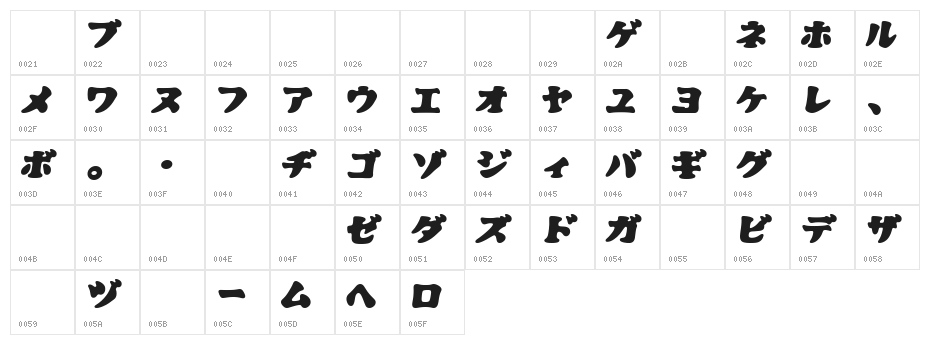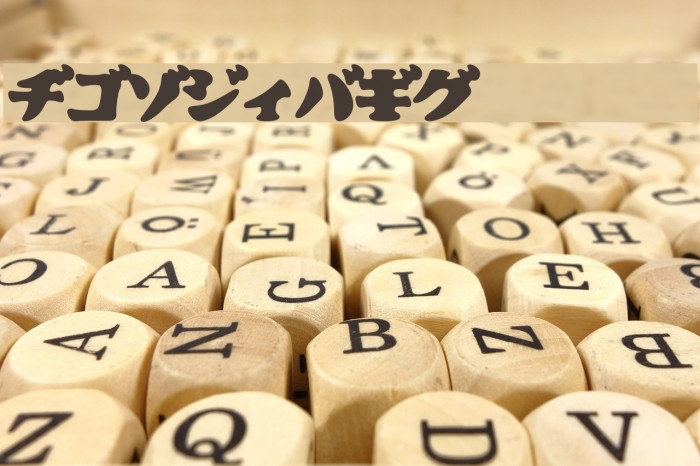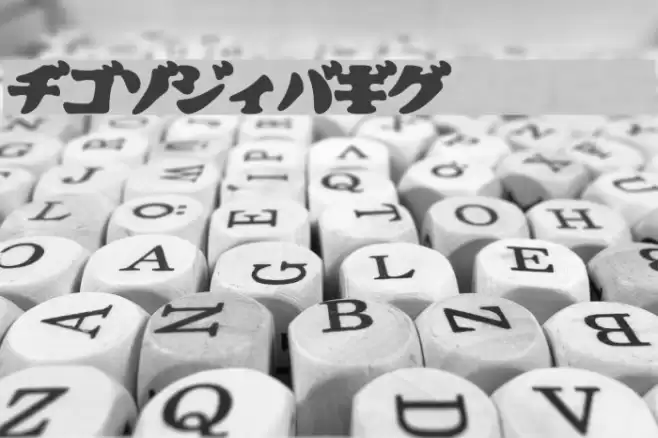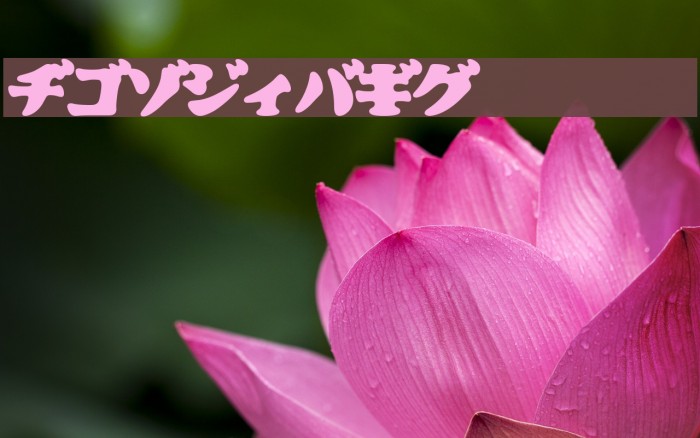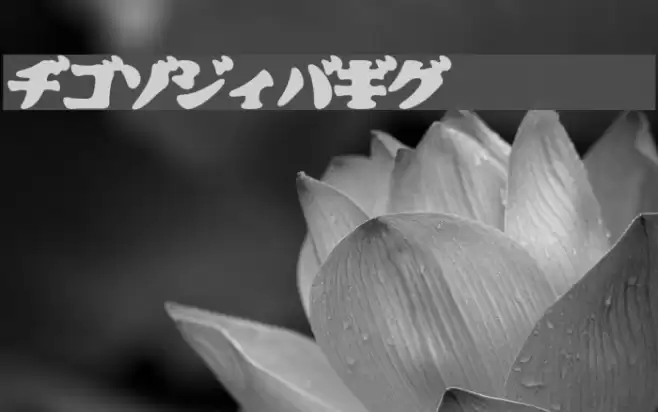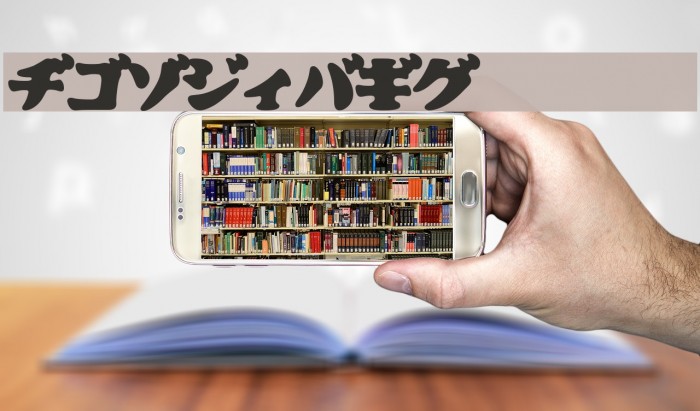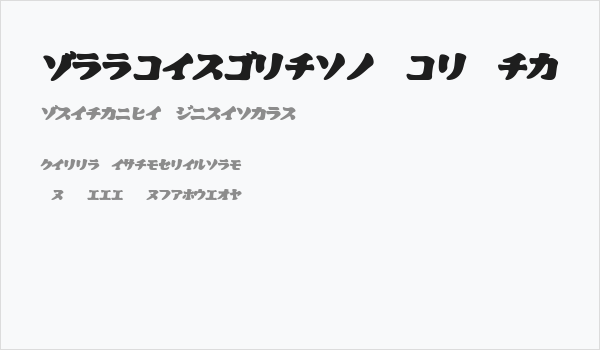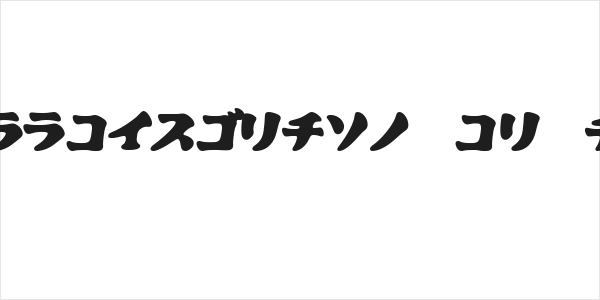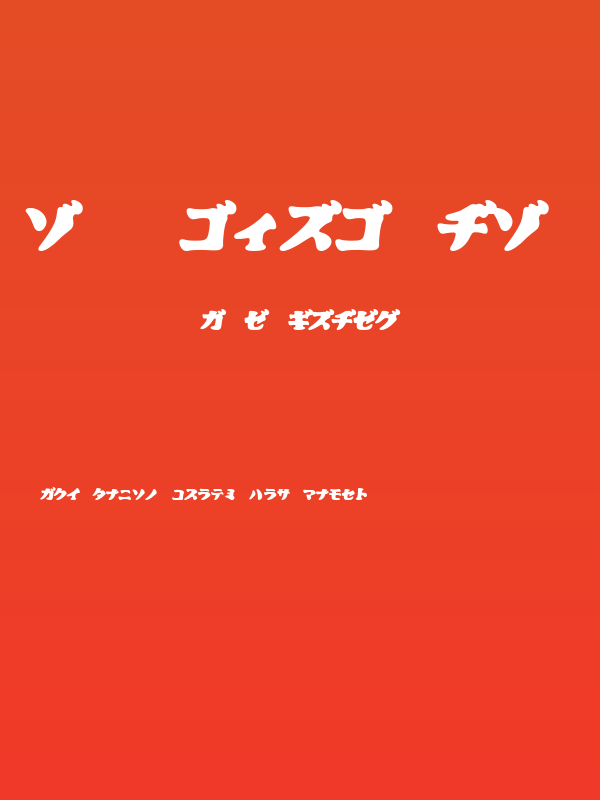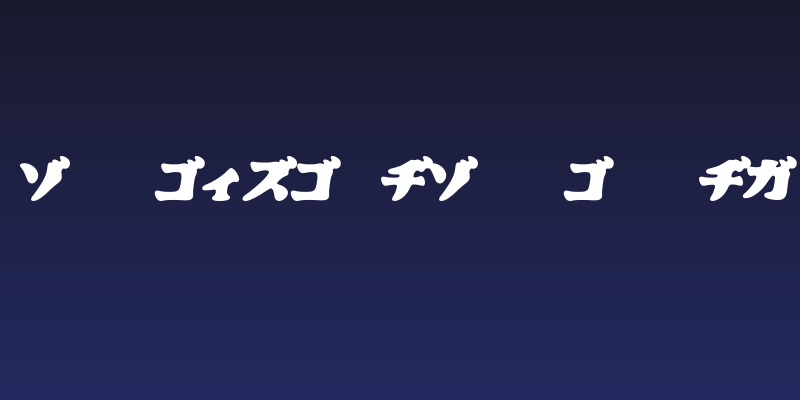
CooberBlackOblKat Font
CooberBlackOblKat Description
This font features bold, rounded characters with a playful and dynamic appearance. The strokes are thick and consistent, giving it a strong presence. The characters are slightly slanted, adding a sense of movement and energy. The overall style is reminiscent of graffiti or street art, making it suitable for designs that require a bold and unconventional look. The font's unique character shapes and heavy weight make it stand out, while the rounded edges soften its appearance, balancing boldness with approachability.
| Use Case | Logos, Posters, Headlines |
| Proposed Projects | Ideal for street art designs, posters, album covers, and branding projects that require a bold and energetic look. |